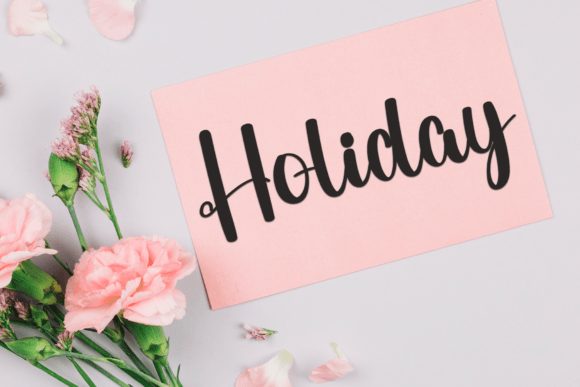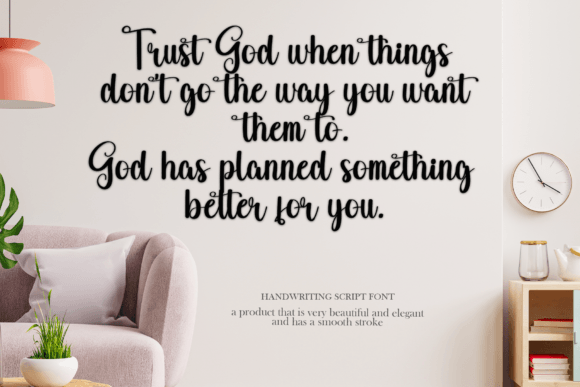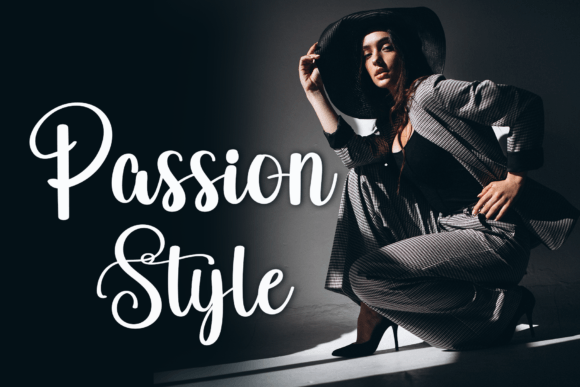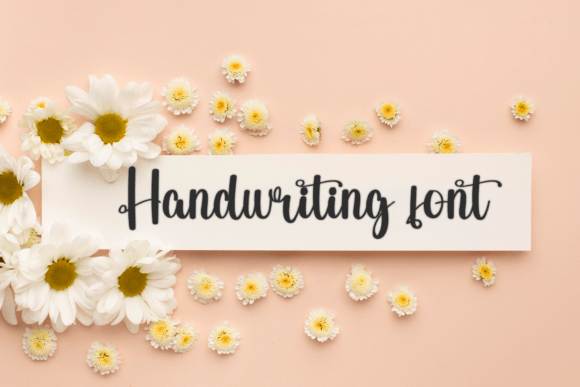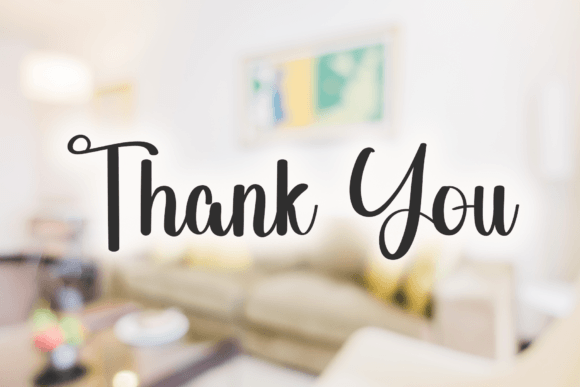
Discover the Elegance of Delta Font: Elevate Your Designs with a Timeless Touch
Are you on the hunt for a font that exudes elegance and sophistication? Look no further than the Delta Font, a stunning handwritten typeface that is sure to capture your heart. With its unique blend of classic charm and modern flair, Delta is the perfect addition to any design project. In this article, we’ll dive into the world of Delta Font, exploring its features, benefits, and uses, as well as provide tips and inspiration for incorporating it into your work.
The Distinctive Style of Delta Font
Delta Font is a beautifully crafted handwritten font that boasts an incredibly distinct and timeless style. Its elegant touch is perfect for creating designs that are both sophisticated and eye-catching. The font’s unique character lies in its flowing lines, delicate curves, and precise letterforms, which come together to create a truly breathtaking typeface.
One of the standout features of Delta Font is its versatility. Whether you’re working on a logo, branding project, or social media graphics, this font is sure to make a statement. Its classic style ensures that it will never go out of fashion, making it a valuable addition to any designer’s toolkit.
Why Choose Delta Font?
So, what sets Delta Font apart from other fonts on the market? Here are just a few reasons why designers and crafters are falling in love with this beautiful typeface:
- Elegant and sophisticated: Delta Font exudes elegance and sophistication, making it perfect for high-end designs and luxury brands.
- Unique and distinctive: The font’s unique character ensures that your designs will stand out from the crowd and leave a lasting impression.
- Versatile: Delta Font can be used for a wide range of design projects, from logos and branding to social media graphics and more.
- Timeless: The font’s classic style ensures that it will never go out of fashion, making it a valuable investment for any designer.
Using Delta Font in Your Designs
So, how can you incorporate Delta Font into your designs? Here are a few tips and ideas to get you started:
- Pair it with bold graphics: Delta Font looks stunning when paired with bold graphics and bright colors. Try using it as a headline font and pairing it with eye-catching imagery.
- Use it for logos and branding: The font’s elegant style makes it perfect for logos and branding projects. Use it to create a sophisticated and memorable brand identity.
- Add a personal touch: Delta Font is perfect for adding a personal touch to your designs. Try using it for quotes, testimonials, or other types of text that require a more personal and elegant approach.
Inspiration and Examples
Still not sure how to use Delta Font in your designs? Here are a few examples and inspiration to get you started:
- Luxury branding: Use Delta Font to create a sophisticated and luxurious brand identity. Pair it with elegant graphics and a neutral color palette for a truly high-end look.
- Wedding designs: The font’s elegant style makes it perfect for wedding designs, including invitations, programs, and more.
- Social media graphics: Delta Font is perfect for creating eye-catching social media graphics. Try using it as a headline font and pairing it with bold graphics and bright colors.
In conclusion, Delta Font is a beautiful and elegant handwritten typeface that is sure to elevate your designs to the next level. With its unique character, versatility, and timeless style, it’s the perfect addition to any designer’s toolkit. Whether you’re working on a logo, branding project, or social media graphics, Delta Font is sure to make a statement. So why wait? Fall in love with Delta Font today and start creating spectacular designs that will leave a lasting impression!